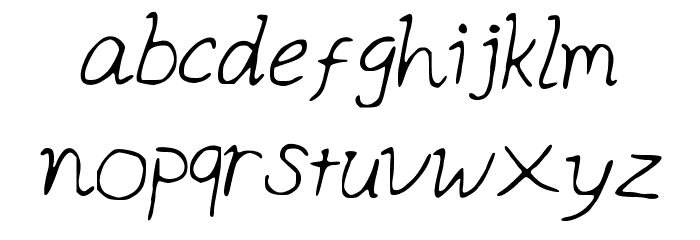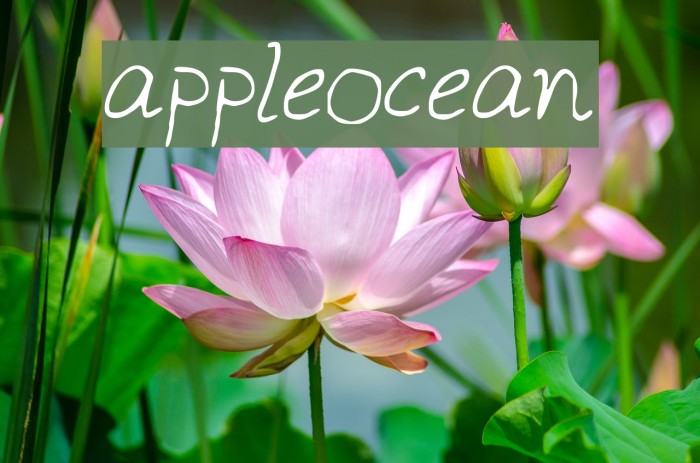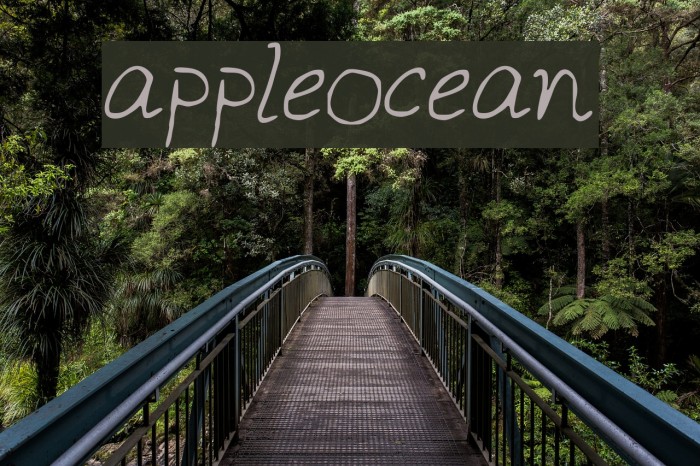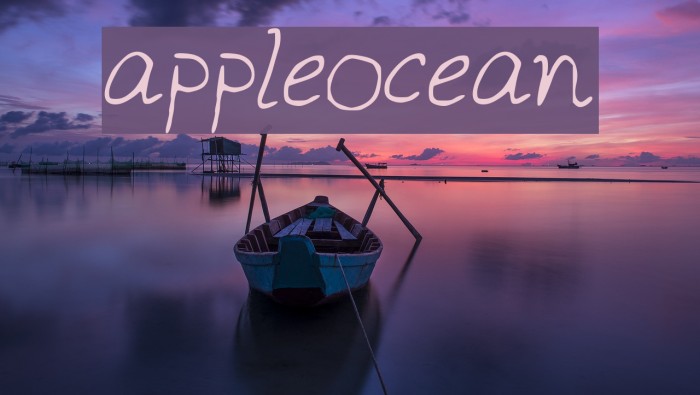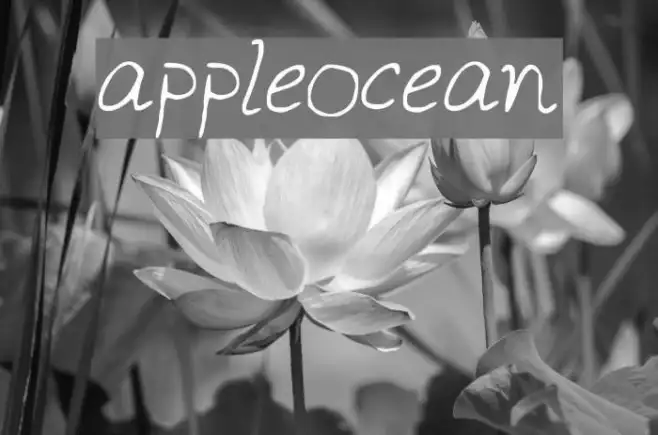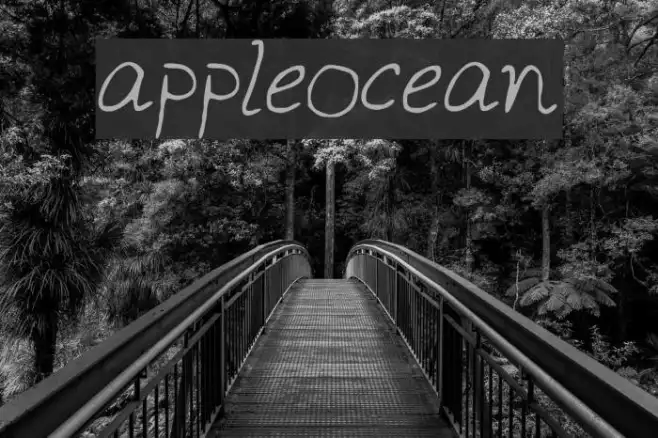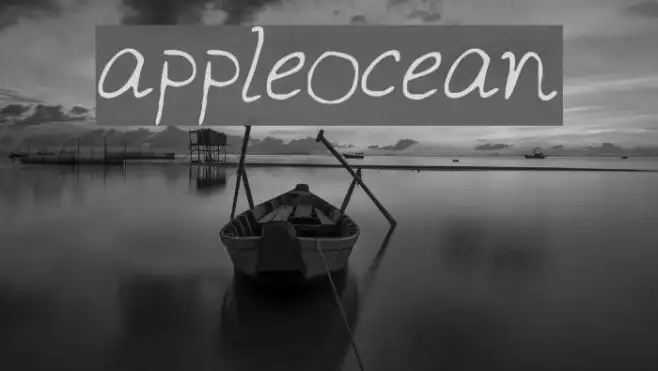
appleocean Font
This font features a handwritten style with a casual and flowing appearance. The letters have a slight slant, giving them a dynamic and informal look. The strokes are smooth and slightly irregular, mimicking natural handwriting. The uppercase letters are well-proportioned, while the lowercase letters exhibit a playful and relaxed form. The overall design is approachable and friendly, making it suitable for projects that require a personal touch. The special characters maintain the same handwritten aesthetic, ensuring consistency throughout the font.
A casual, handwritten font with a smooth and flowing style.
- Proposed Projects: Ideal for greeting cards, personal notes, invitations, and informal branding.
- Overall Style: Casual
- Use Case: Logos, Invitations, Personal notes